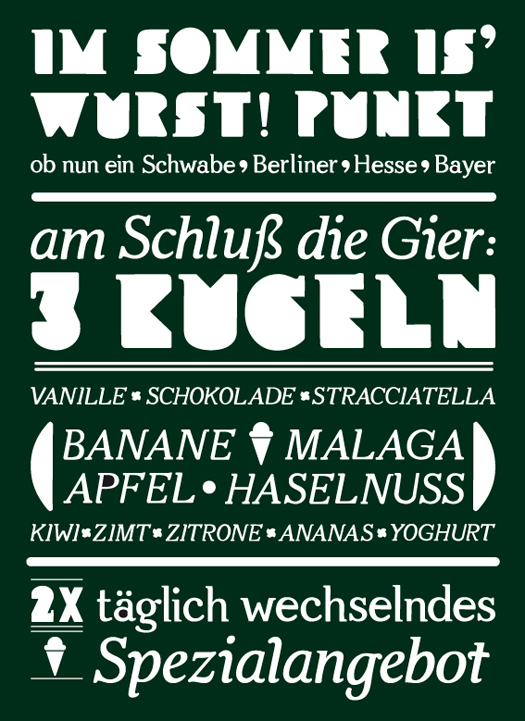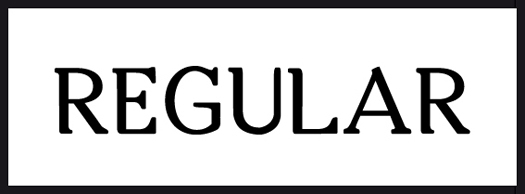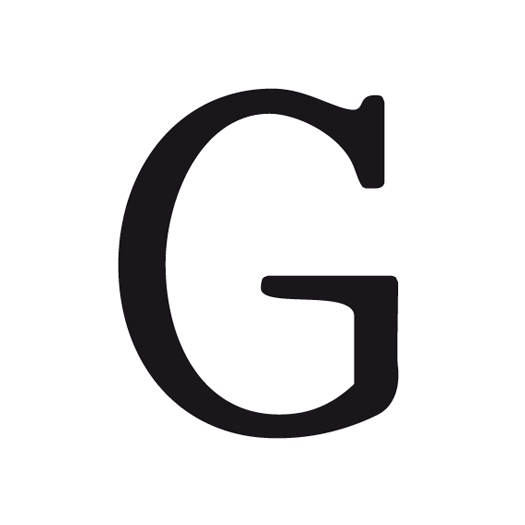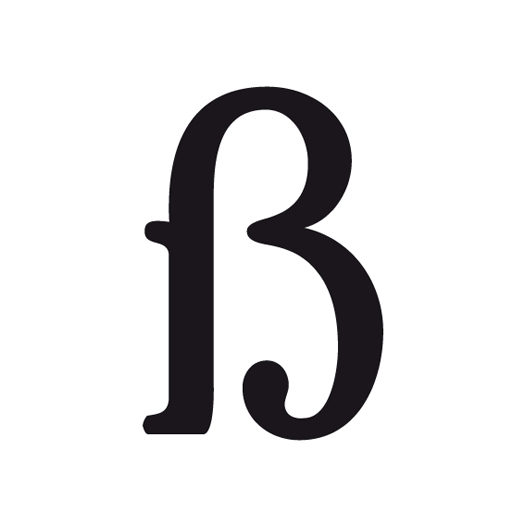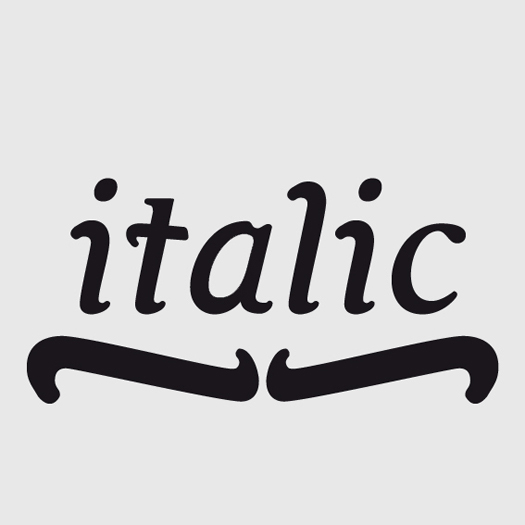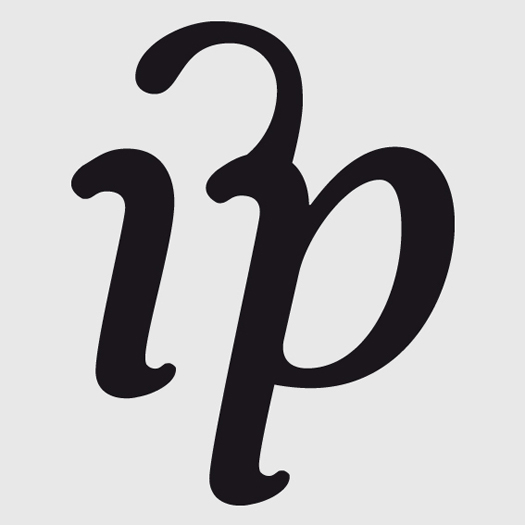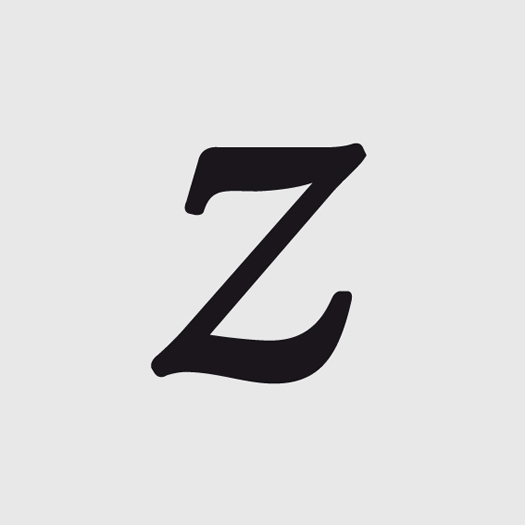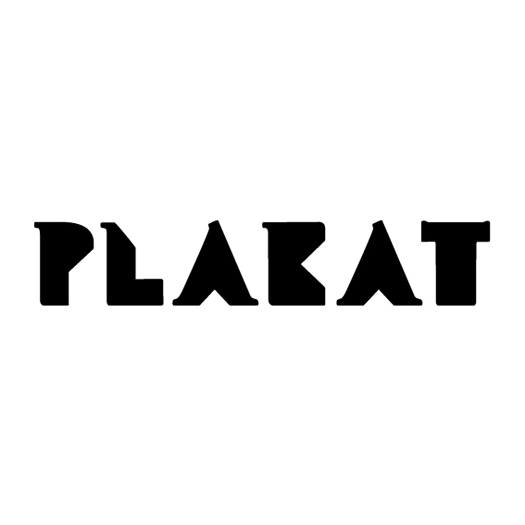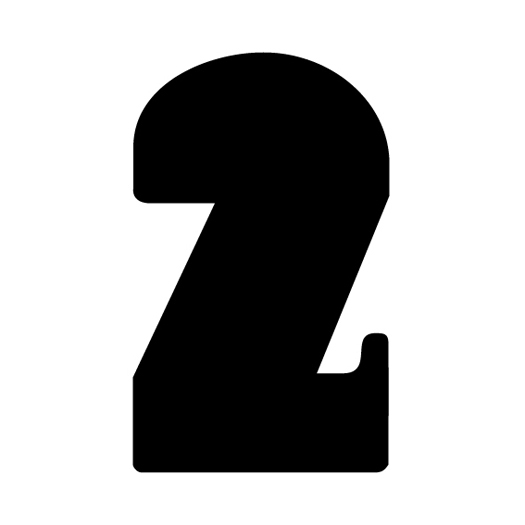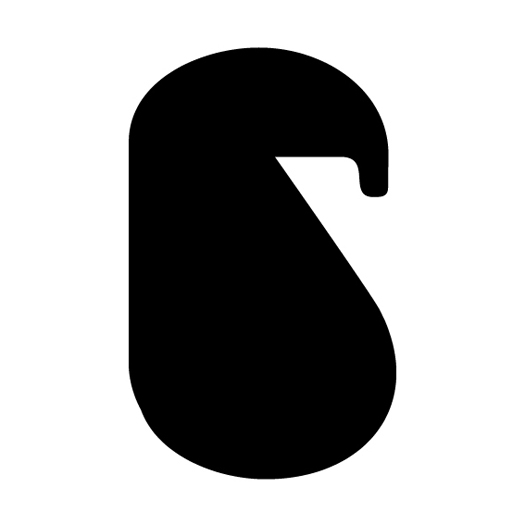
Splinter
This typeface is based on architectural details from different art nouveau building fronts. It is constructed on a grid which is derived of distinctive parameter. The booklet shows the range and details of every typeface. Technical implementation in progress.